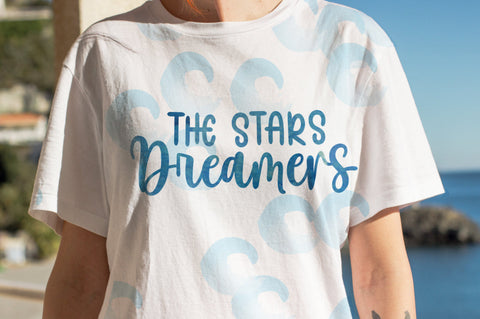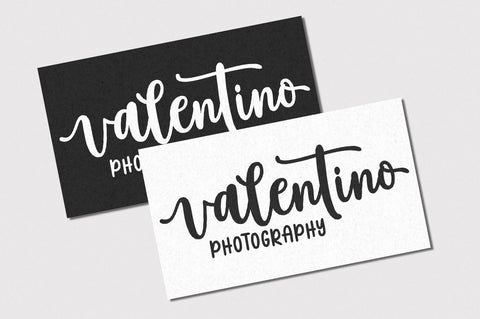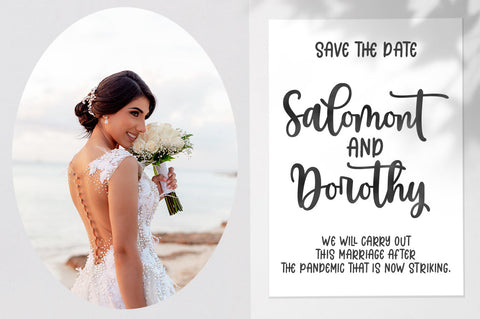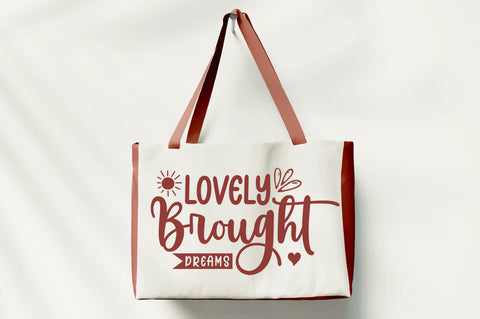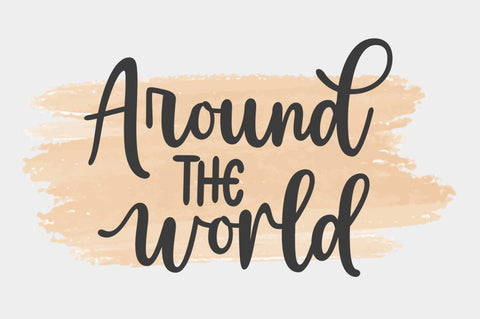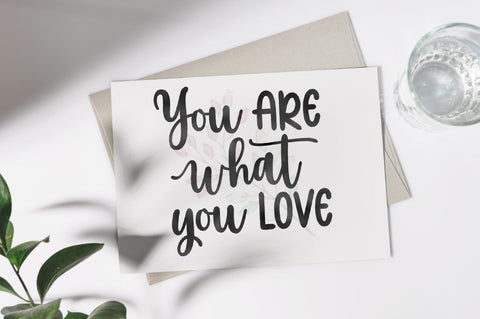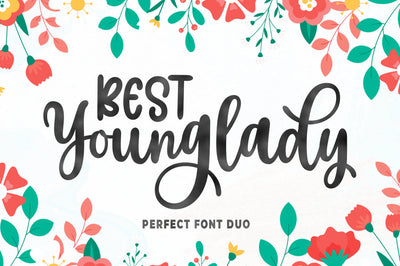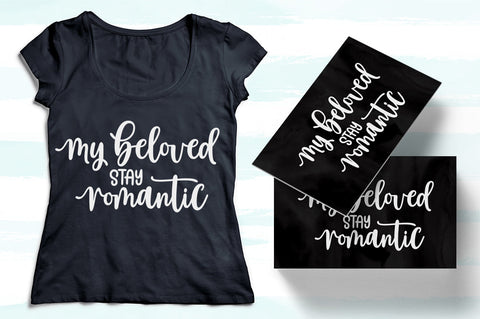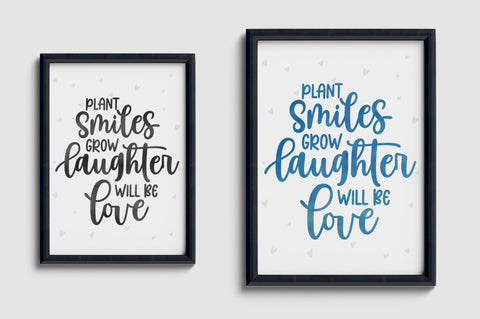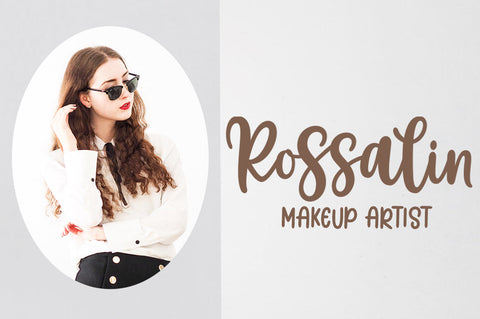
Best Younglady | Font Duo
Best Younglady Script and Sans are beautiful and romantic writing fonts. Looks amazing on wedding invitations, thank you cards, quotes, greeting cards, logos, business cards and any other design.
The font includes OpenType features with alternative styles, ligatures, and multiple language support.